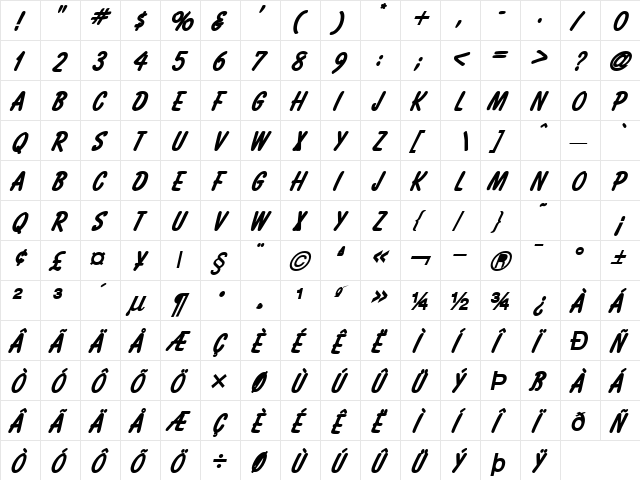
Bassett H Italic
Design Context for Bassett H Typeface
Bassett H takes a measured approach to typography — its balanced proportions and neutral character make it a reliable workhorse for both digital and print work. Its italic angle brings a sense of urgency and motion to the letterforms.
Pro Tip: Use Bassett H for emphasis, pull quotes, and subheadings where its slanted energy can add rhythm to the layout.